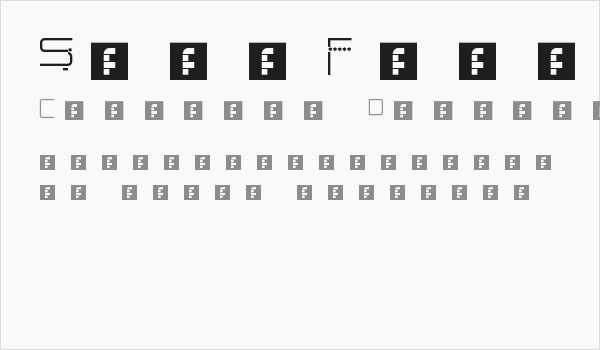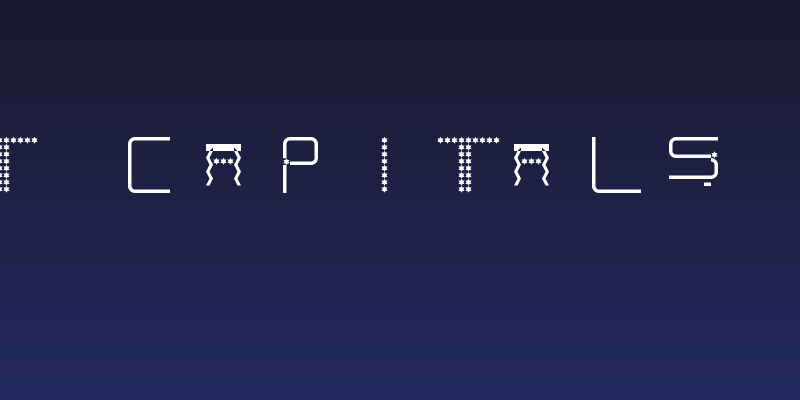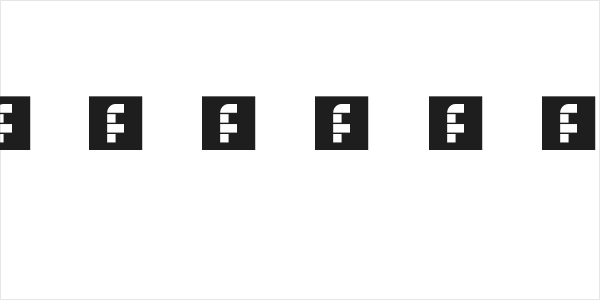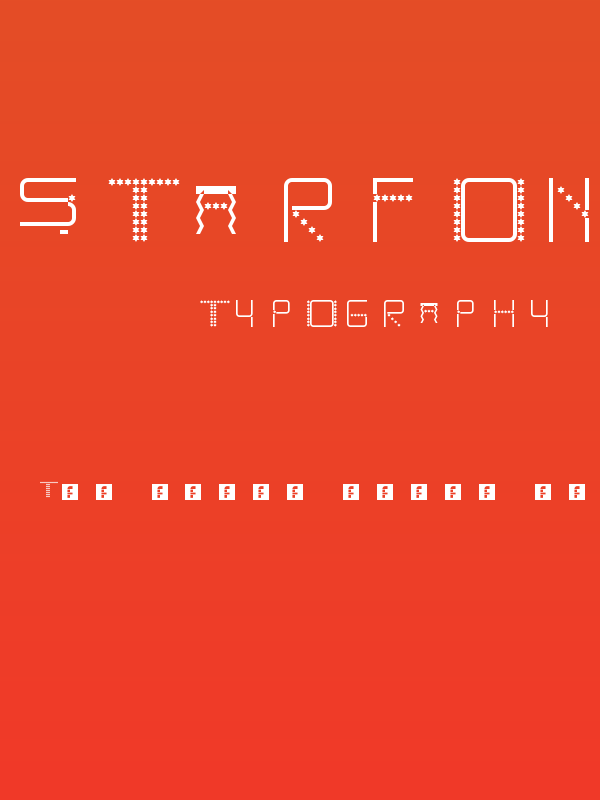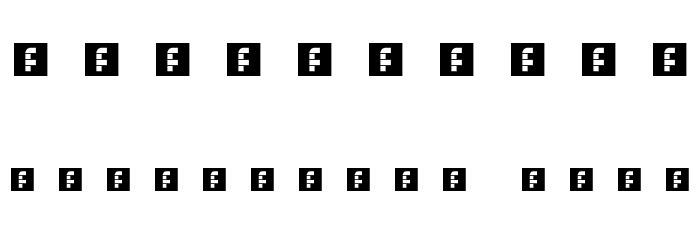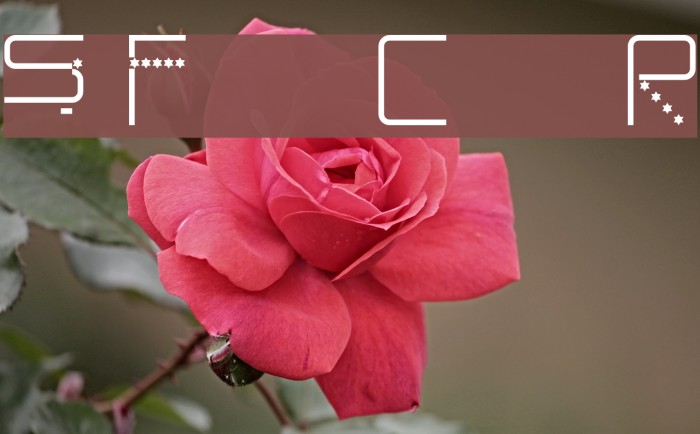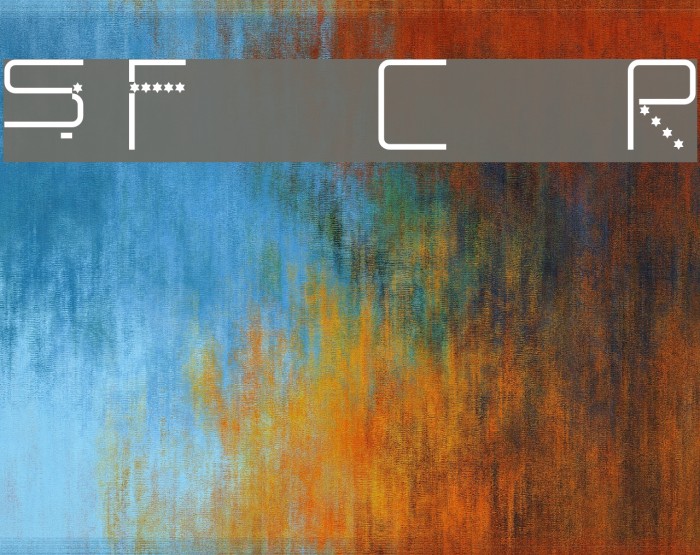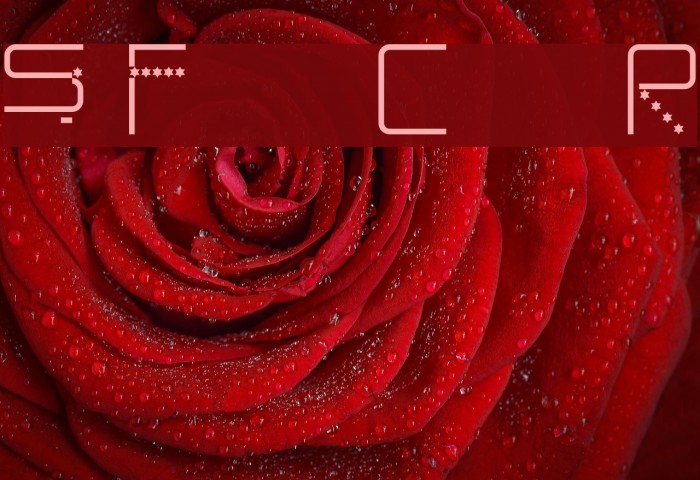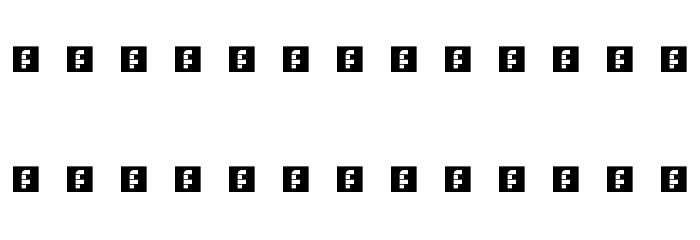
StarFont Capitals Regular Font
StarFont Capitals Regular Description
This font features a unique and futuristic design, characterized by its use of dots and lines to form each letter. The uppercase letters are constructed with a minimalist approach, using a combination of straight lines and dotted patterns that give it a digital or electronic feel. The absence of lowercase letters and numbers emphasizes its decorative nature. The font's geometric and modular style makes it stand out, ideal for projects that require a modern and tech-inspired aesthetic. Its distinct appearance is both eye-catching and functional, suitable for creative and innovative design applications.
| Proposed Projects | Ideal for tech-related branding, digital art, futuristic posters, and sci-fi themed projects. |